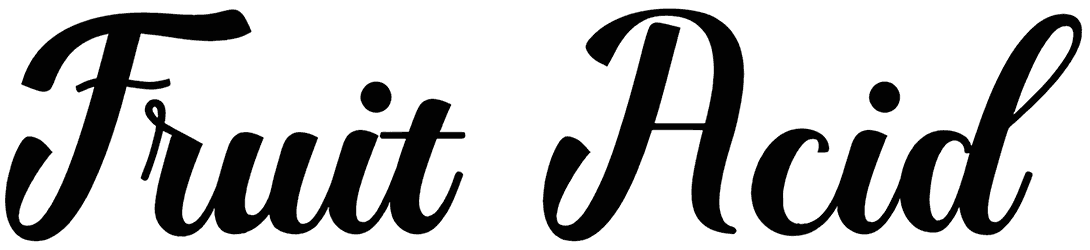
Fruit Acid Font
For all who aspire to add an artistic reflection to their assemblages, script font is a well-paid job. This wonder with an animated and viable face can communicate with all audiences to evoke their attention presently.